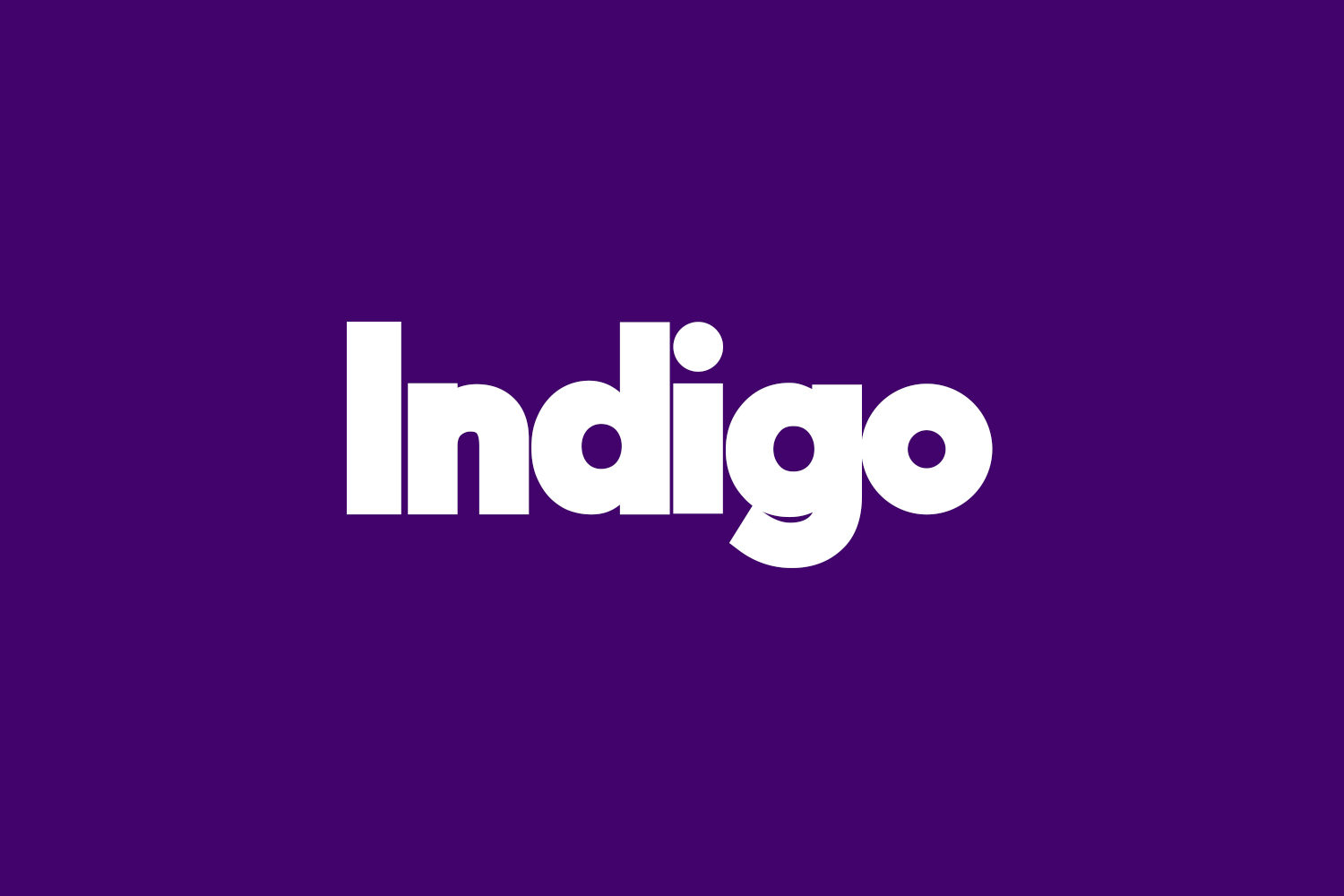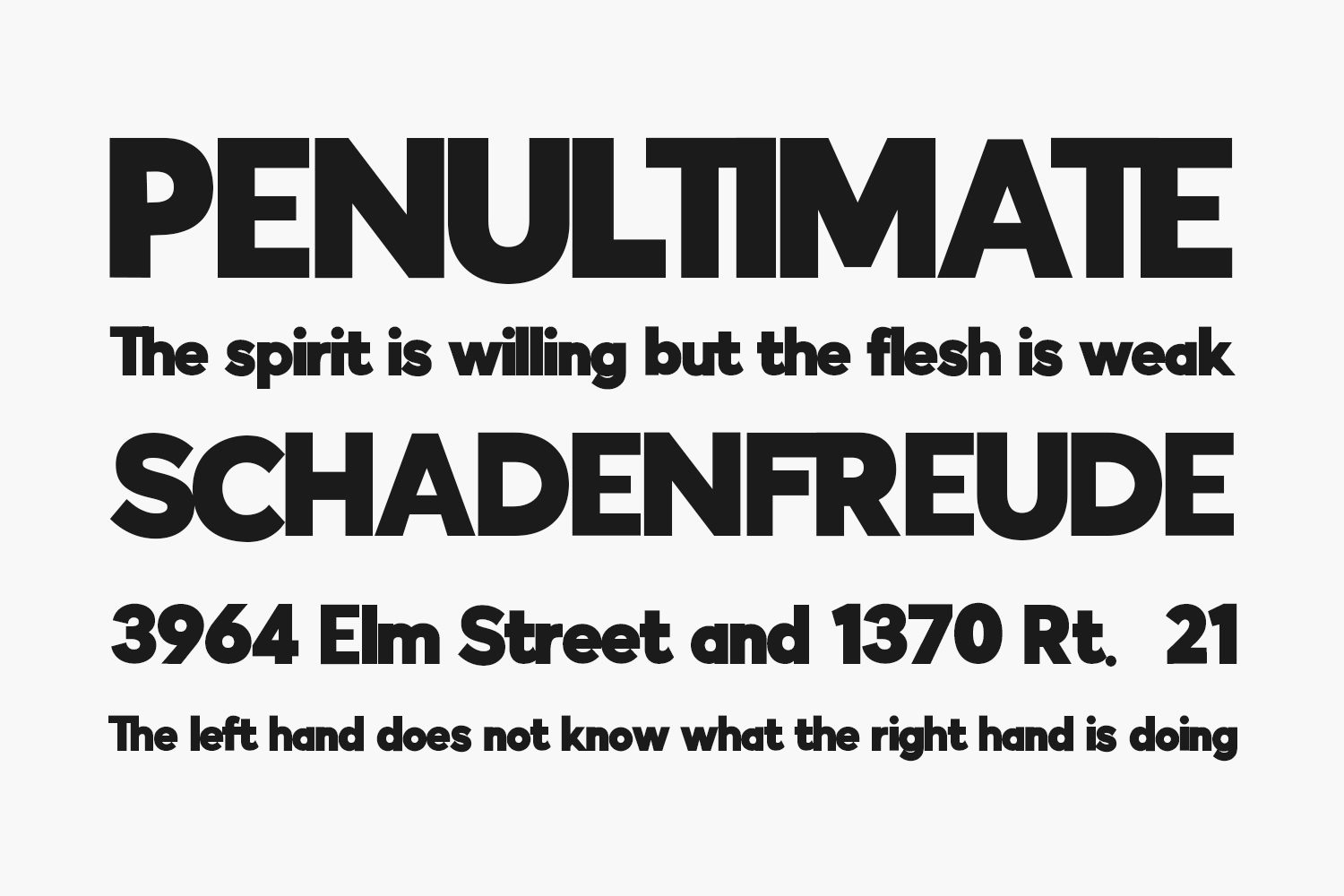
Our brand new font duo ‘Indigo’ won’t give you the blues. It’s a fab combo of the sans serif ‘Indigo Regular’ and the outline version ‘Indigo Outline’. Combine the two for sophisticated yet edgy designs or be bold enough to use them alone. Perfect for stand-out headers, Instagram posts, Logos, web design and much more.